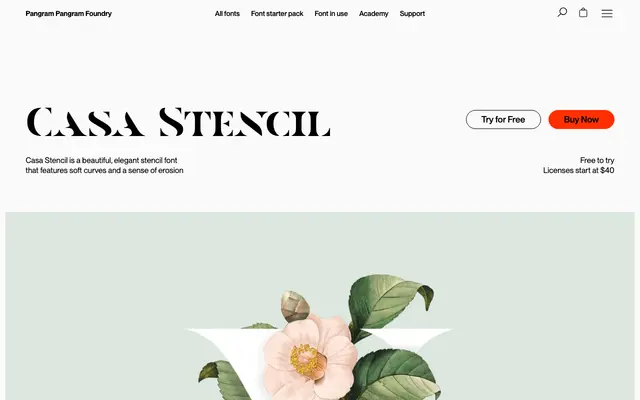
Casa Stencil
Pangram Foundry · Mat Desjardins · 2018
A single-weight stencil serif by Mat Desjardins, distinguished by soft curves and a textured, eroded quality suited to display work.
Designed by Mat Desjardins and updated in 2018, Casa Stencil offers one Regular weight with 237 glyphs and broad Latin language support. The stencil cuts and eroded details give letterforms a worn, tactile quality that sits well in title settings and logo work. Coverage extends across Western and Central European languages including Russian and Serbian.
A stencil display typeface with serif characteristics, soft curves and deliberate erosion effects. Categorised as display due to its explicit positioning for titles and logos rather than running text.